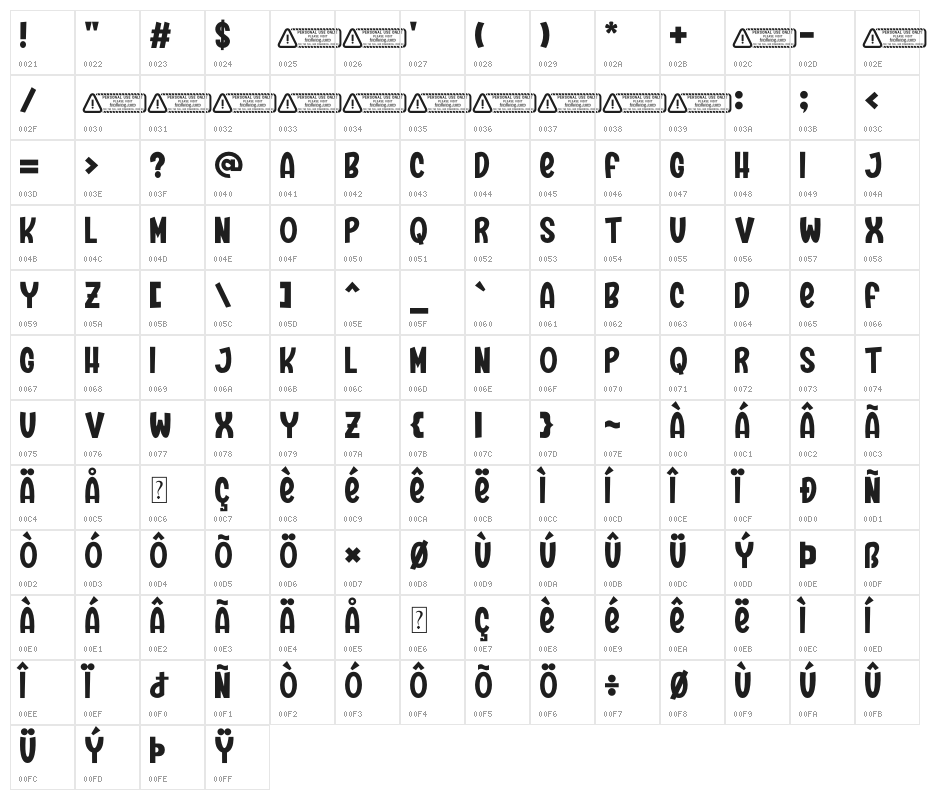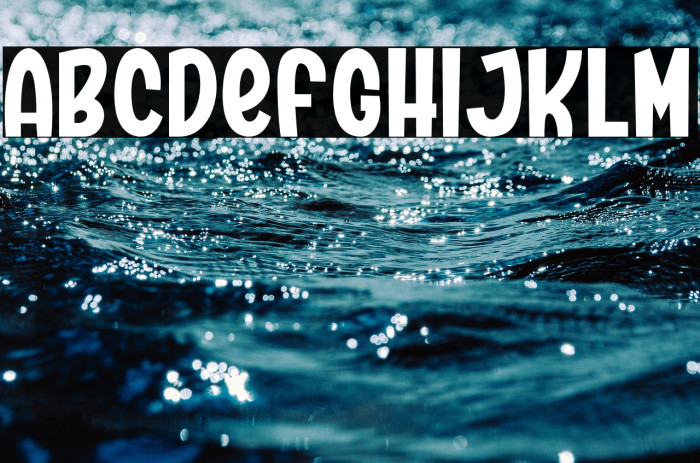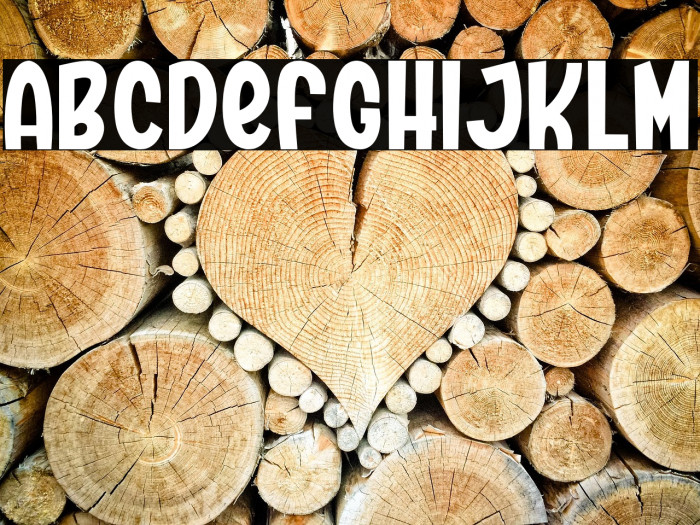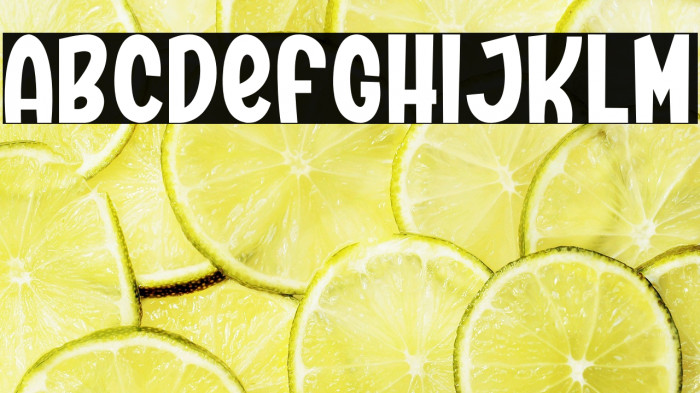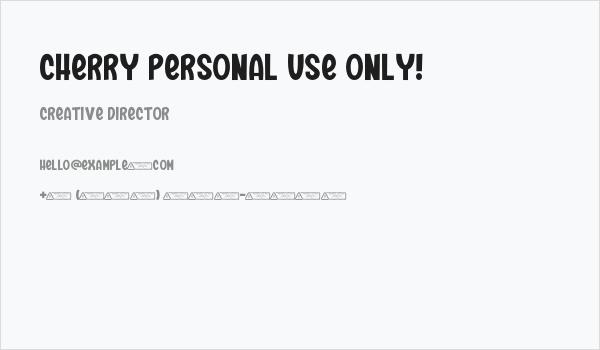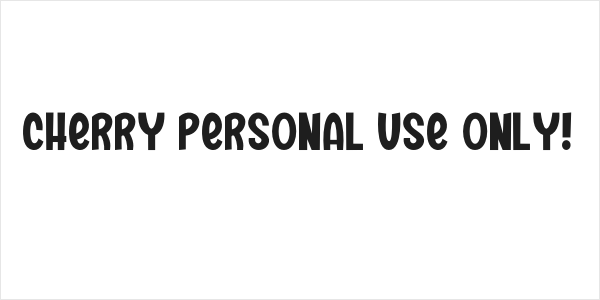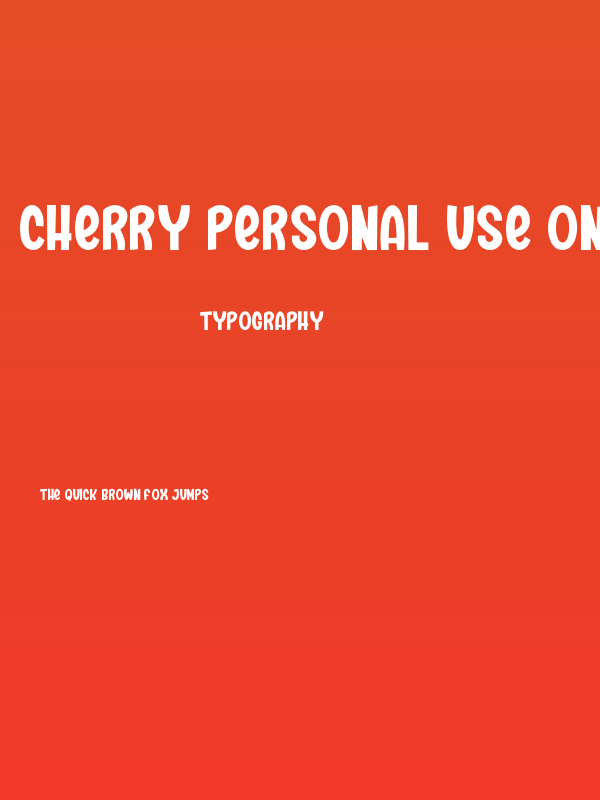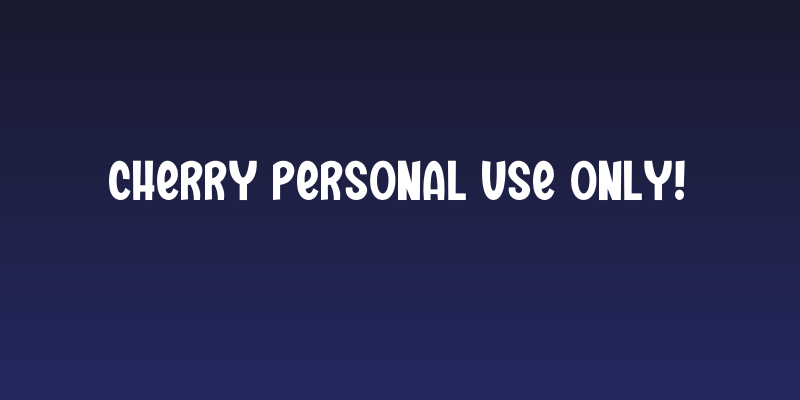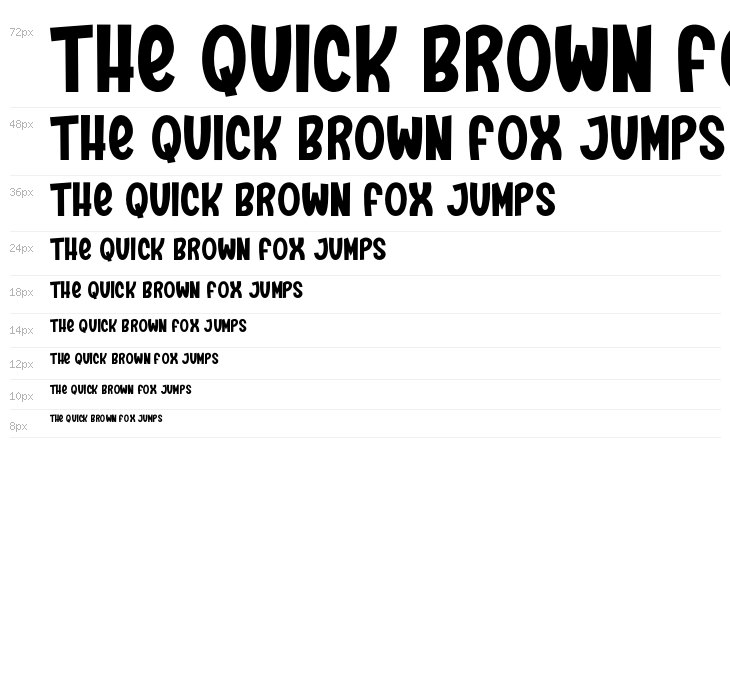
Cherry PERSONAL USE ONLY! Font
Cherry PERSONAL USE ONLY! Description
This font features bold, playful characters with a whimsical and slightly retro aesthetic. The uppercase letters are robust and rounded, with a unique flair that adds a touch of fun to any design. The lowercase letters maintain the same playful style, ensuring consistency across text. The numbers are equally bold, making them stand out effectively. Special characters are designed with the same attention to detail, ensuring they complement the overall style. This font's thick strokes and rounded edges give it a friendly and approachable feel, making it ideal for projects that require a touch of personality.
| Overall Style | Playful, Retro |
| Proposed Projects | Ideal for children's books, playful branding, posters, and greeting cards. |